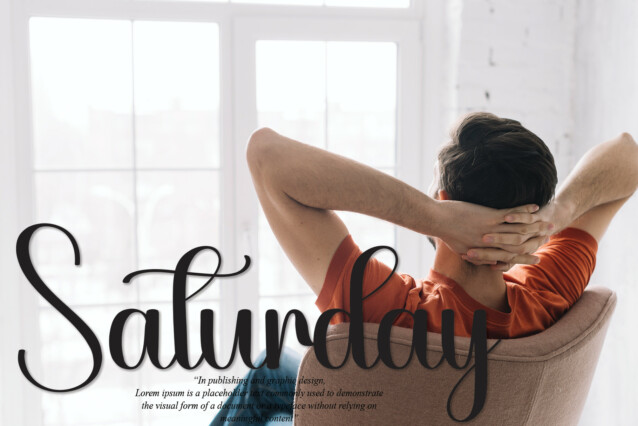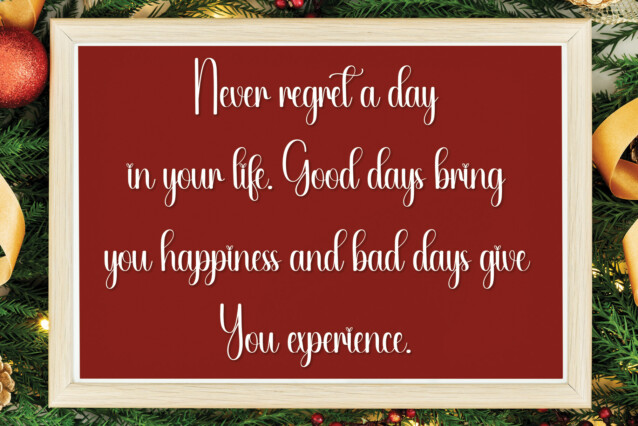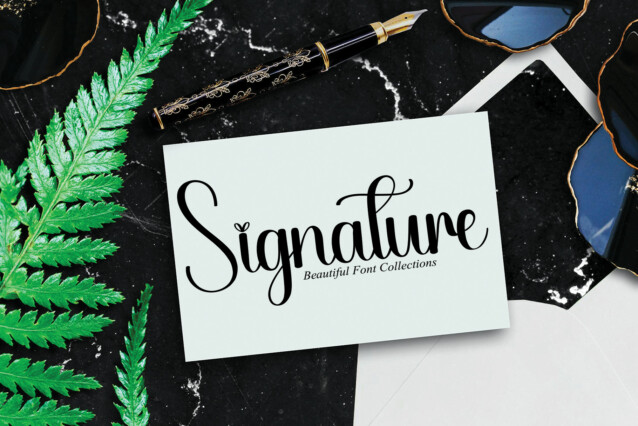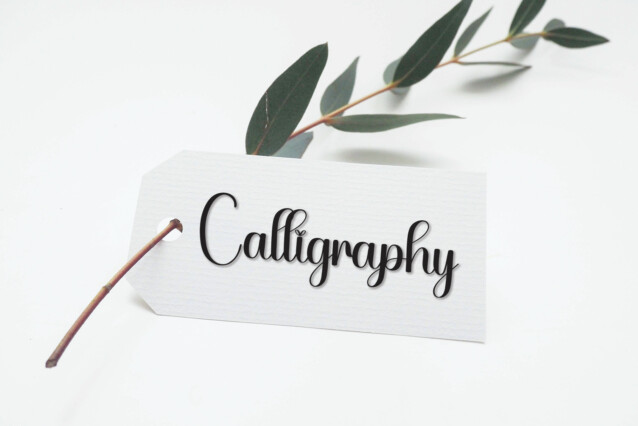
Healing Script Font
Healing Script Font is a new script handwriting font. This elegant font is perfect for wall displays, wedding invitations, social media post logos, advertisements, product packaging, product designs, labels, photography, watermarks, invitations, stationery, and any project that requires taste handwriting.